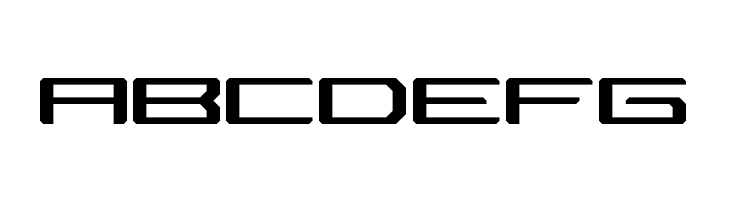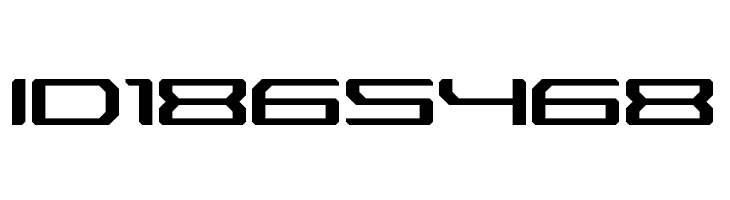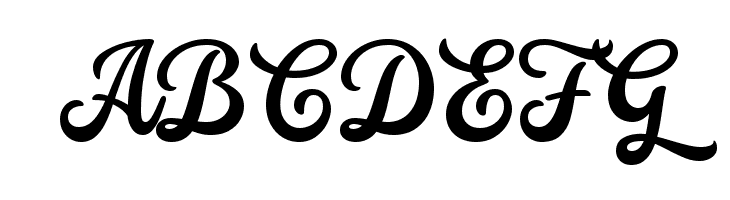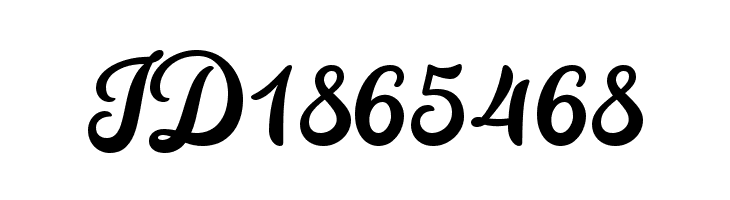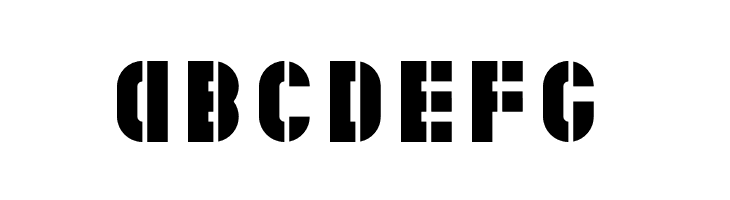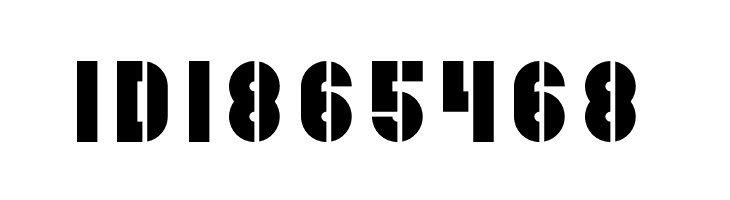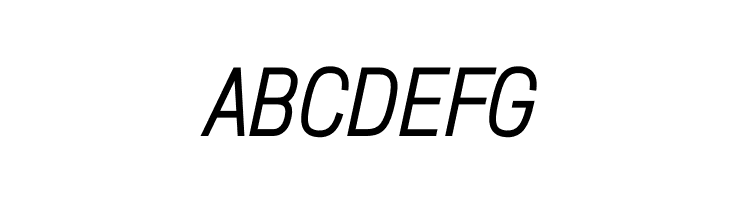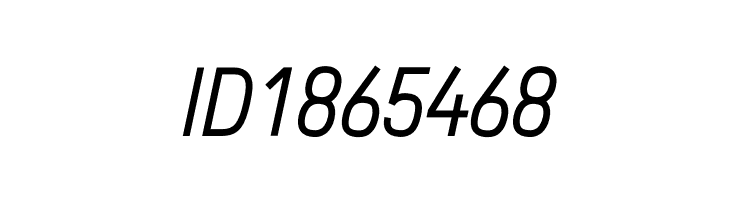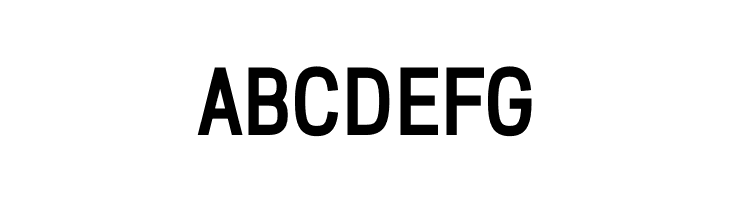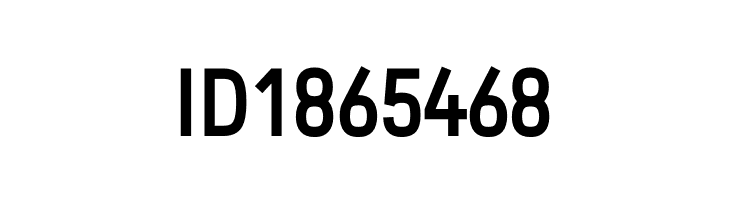
A playful, rounded font with smooth curves and a friendly appearance.
A bold, flowing script font with elegant, connected characters.
A classic serif font with high contrast and elegant curves, featuring unique musical symbols.
A quirky, cartoon-style decorative font made of illustrated faces.
Cartoonish, decorative font with each character as a unique illustrated face.
A futuristic, geometric font with angular, block-like letterforms.
A decorative font with characters inside whiskey bottle silhouettes.
A modern, geometric sans-serif font with bold uppercase and harmonious lowercase letters.
A bold, geometric font with a modern, squarish design.
A modern, geometric typeface with a squarish, minimalistic design.
A modern, italicized font with a sleek and geometric design.
A bold, stencil-style font with geometric shapes and clear cutouts, perfect for impactful designs.